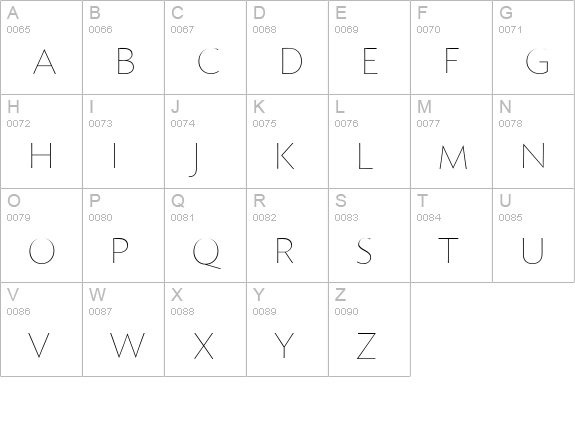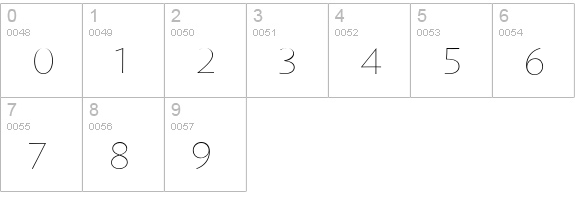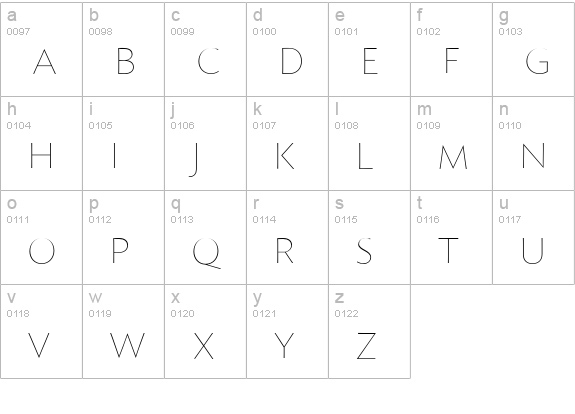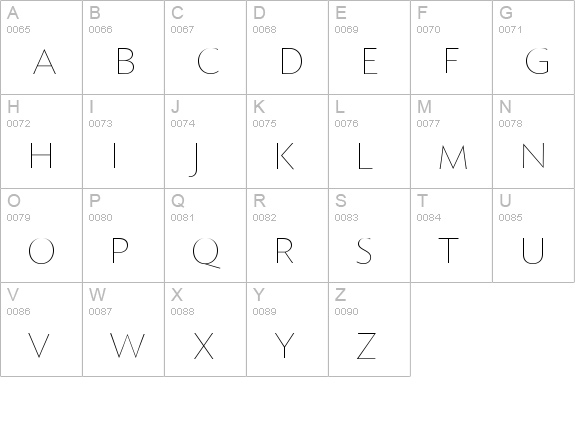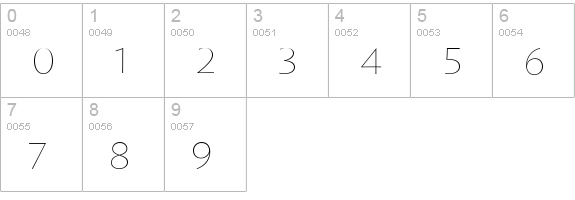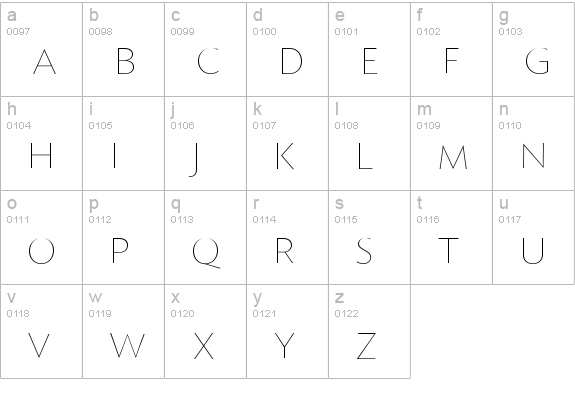
Topaz Inline Font Details
Topaz Inline font is a stunning display typeface that exudes elegance and sophistication. Its sleek, modern design makes it perfect for creating eye-catching headlines, logos, and branding materials. The clean lines and sharp edges of Topaz Inline give it a contemporary feel, while its unique styling sets it apart from other fonts. What makes Topaz Inline even more appealing is that it is completely free to download at FontsMarket.com. This means you can easily access this high-quality font and incorporate it into your design projects without any cost. Whether you're working on a website, poster, or packaging design, Topaz Inline is sure to make a bold statement and elevate your work to the next level. Download Topaz Inline today and add a touch of sophistication to your designs!